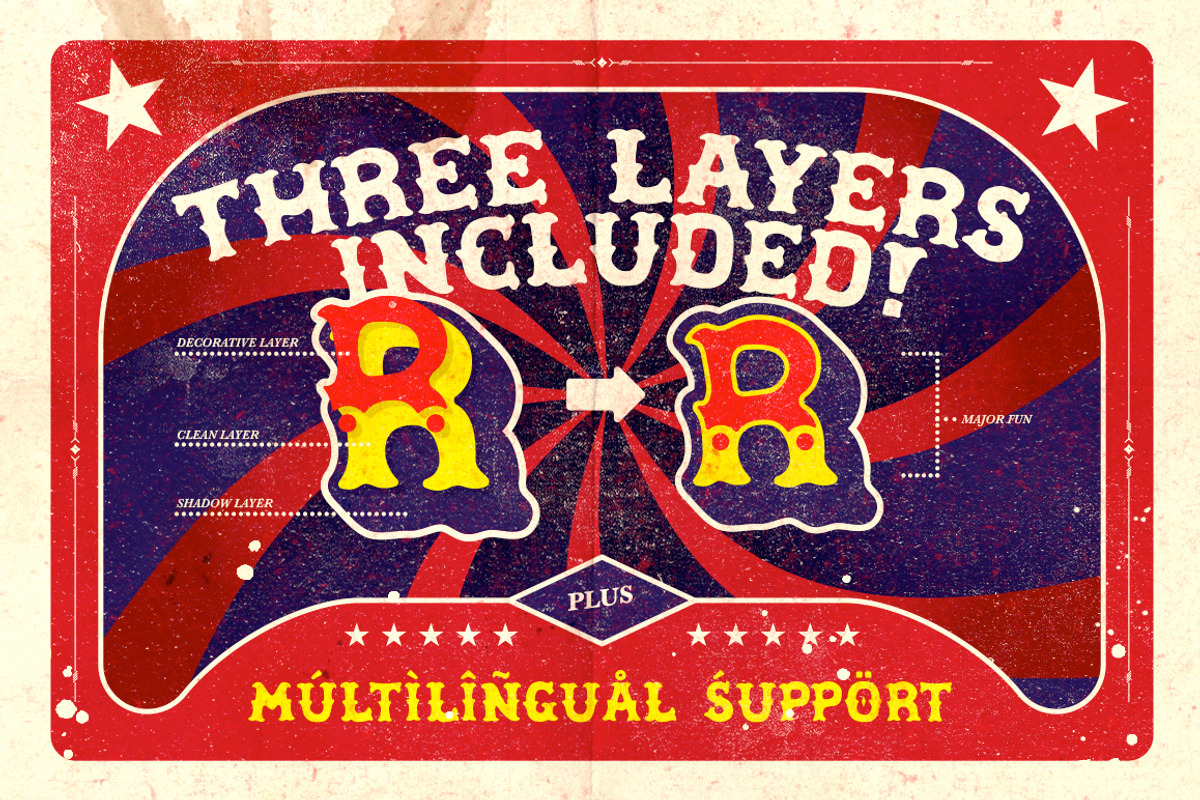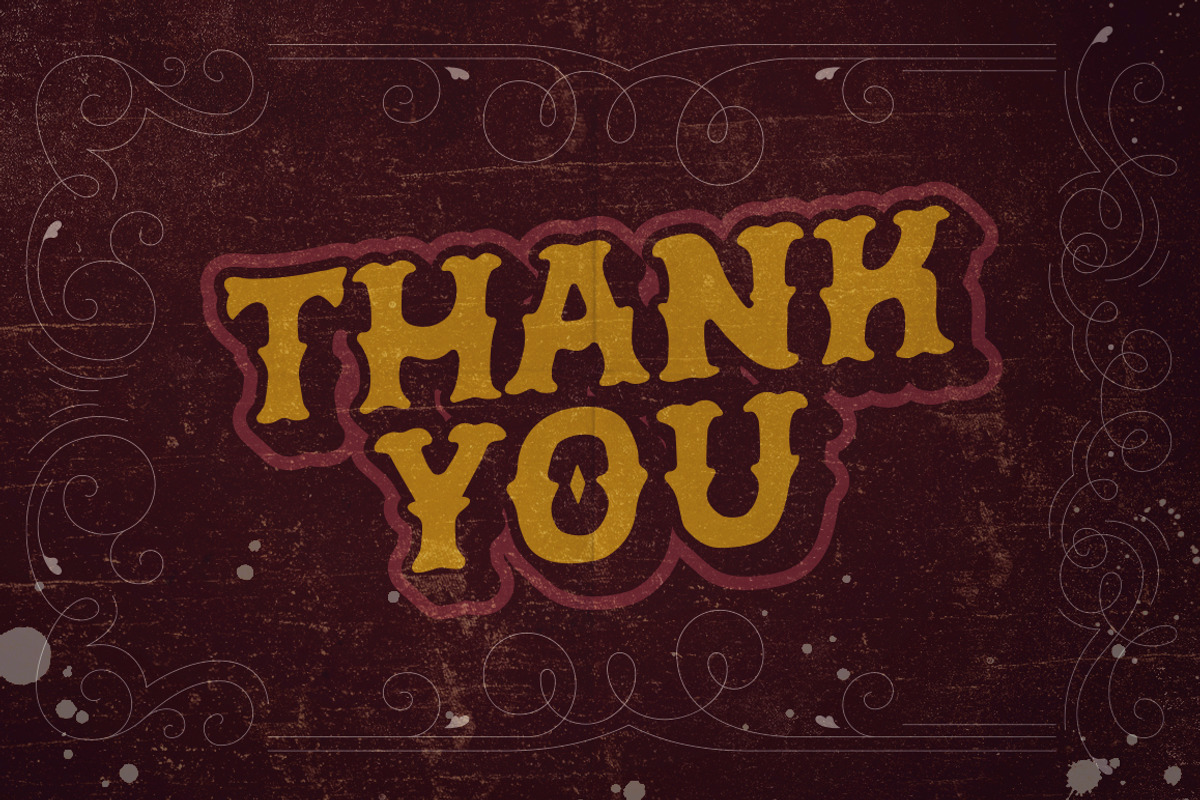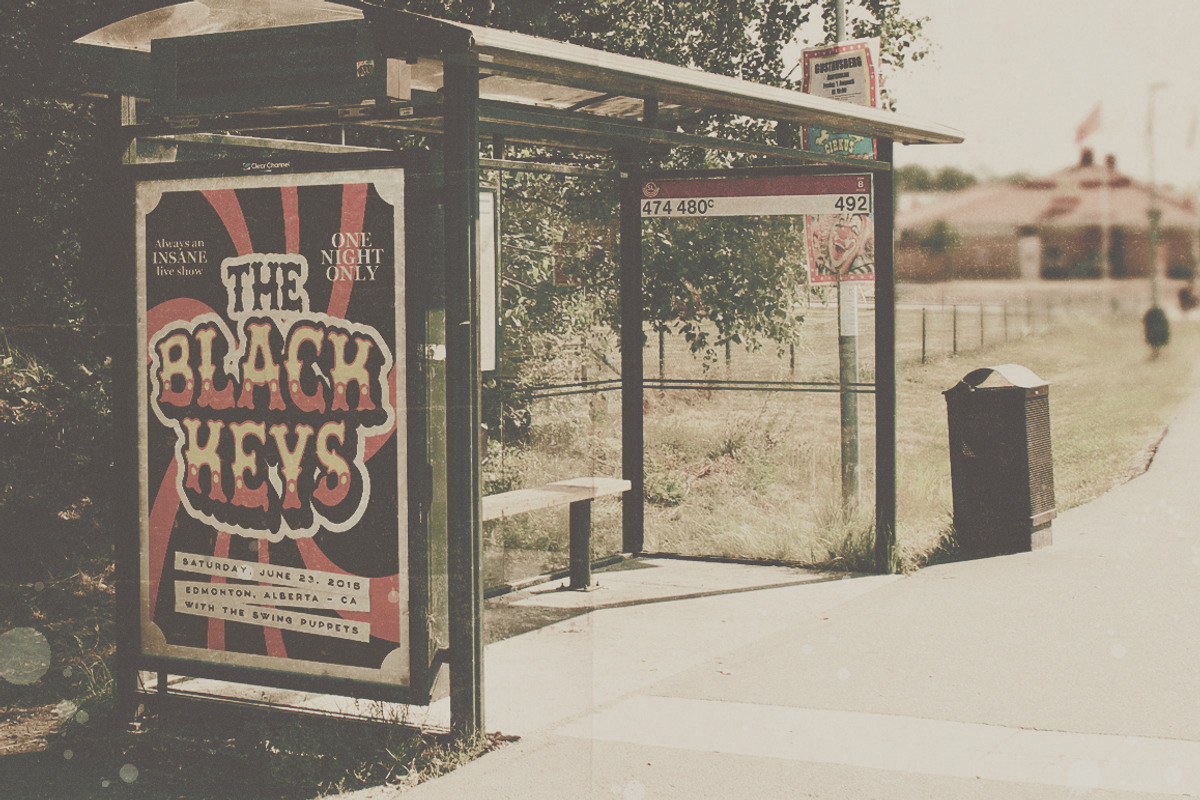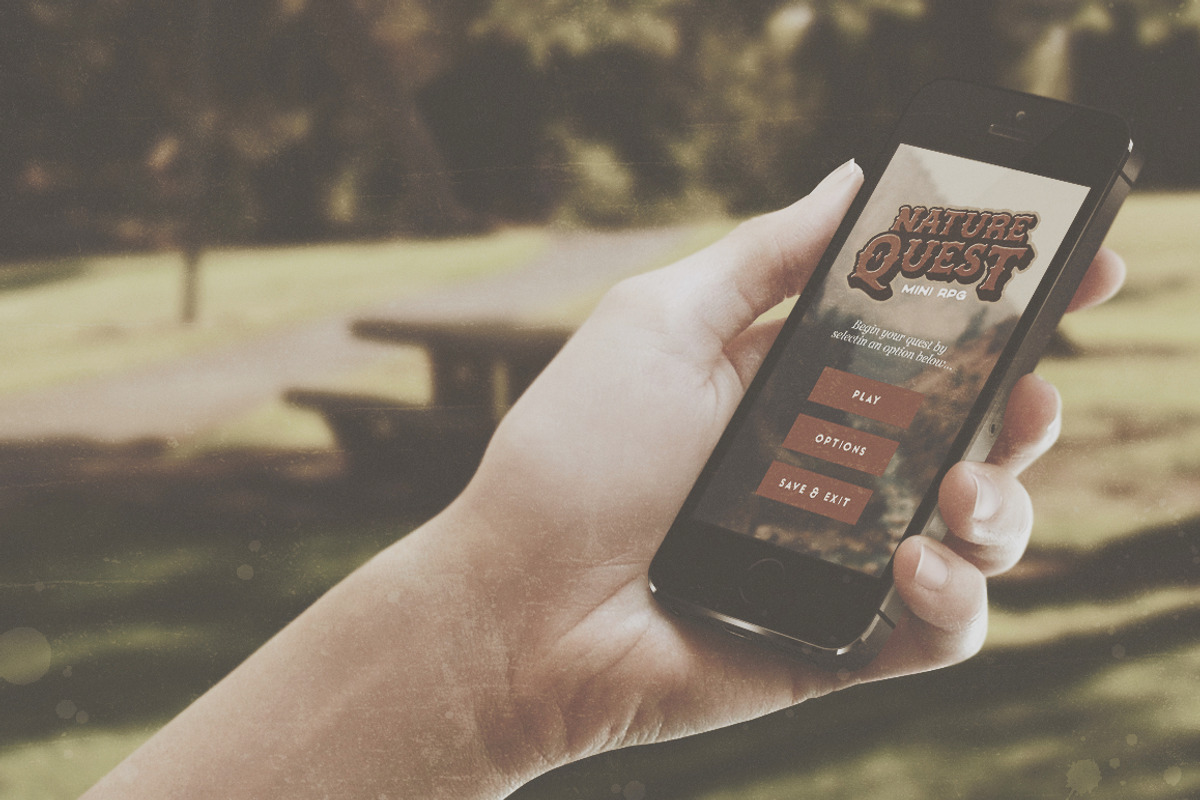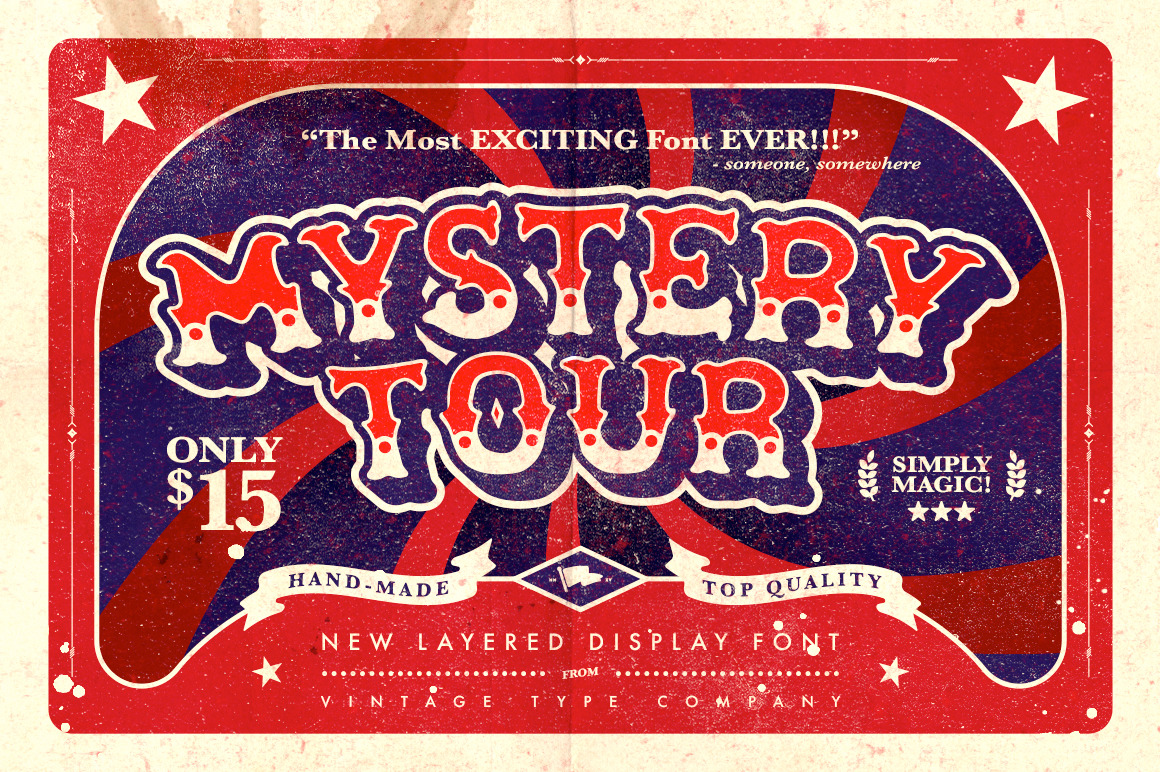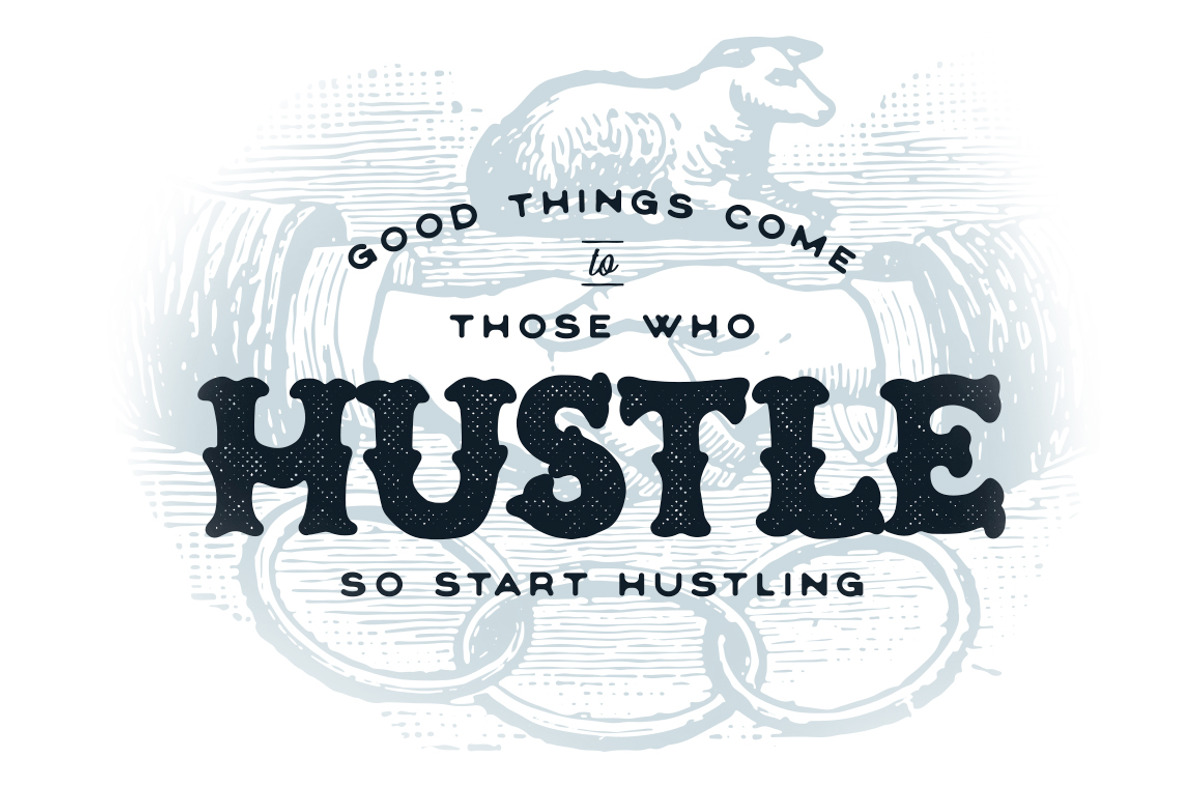
Mystery Tour Display Font
Mystery Tour is a americana-inspired, layered display face that comes with a bonus sans serif. Change the colours in the click of a button!
This font is great for packaging, cover design, posters, logos, basically any time you need your message to pop. Both Mystery Tour & Mystery Tour Sans also come included with multilingual support for the following languages:
Breton, Catalan, Czech, Danish, Estonian, English, Finnish, French, German, Icelandic, Italian, Latvian, Lithuanian, Norwegian, Portuguese, Romanian, Polish, Scottish Gaelic, Slovak, Slovenian, Spanish, Swedish, Turkish, Welsh.